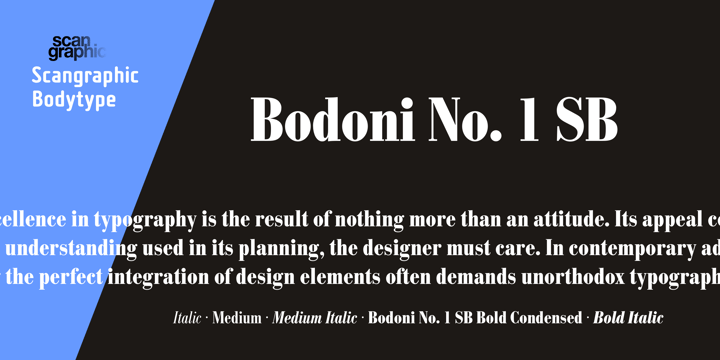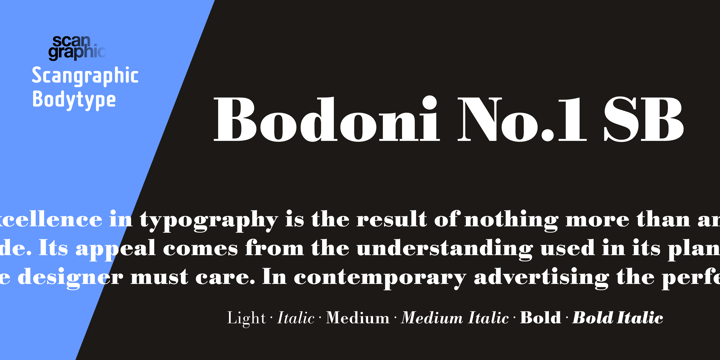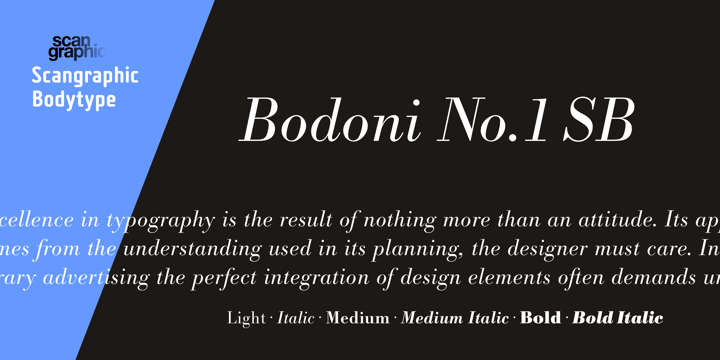
Bodoni No. 1 SH™
by Scangraphic Digital Type Collection
The Bodoni No. 1 SH Font Family was designed by Giambattista Bodoni and published by Scangraphic Digital Type Collection. Bodoni No. 1 SH contains 14 styles and family package options.
Since the release of these fonts most typefaces in the Scangraphic Type Collection appear in two versions. One is designed specifically for headline typesetting (SH: Scangraphic Headline Types) and one specifically for text typesetting (SB Scangraphic Bodytypes). The most obvious differentiation can be found in the spacing. That of the Bodytypes is adjusted for readability. That of the Headline Types is decidedly more narrow in order to do justice to the requirements of headline typesetting. The kerning tables, as well, have been individualized for each of these type varieties. In addition to the adjustment of spacing, there are also adjustments in the design. For the Bodytypes, fine spaces were created which prevented the smear effect on acute angles in small typesizes. For a number of Bodytypes, hairlines and serifs were thickened or the whole typeface was adjusted to meet the optical requirements for setting type in small sizes. For the German lower-case diacritical marks, all Headline Types complements contain alternative integrated accents which allow the compact setting of lower-case headlines.
Designers: Giambattista Bodoni
Publisher: Scangraphic Digital Type Collection
Foundry: Scangraphic Digital Type Collection
Original Foundry: Scangraphic Digital Type Collection
Design Owner: Scangraphic